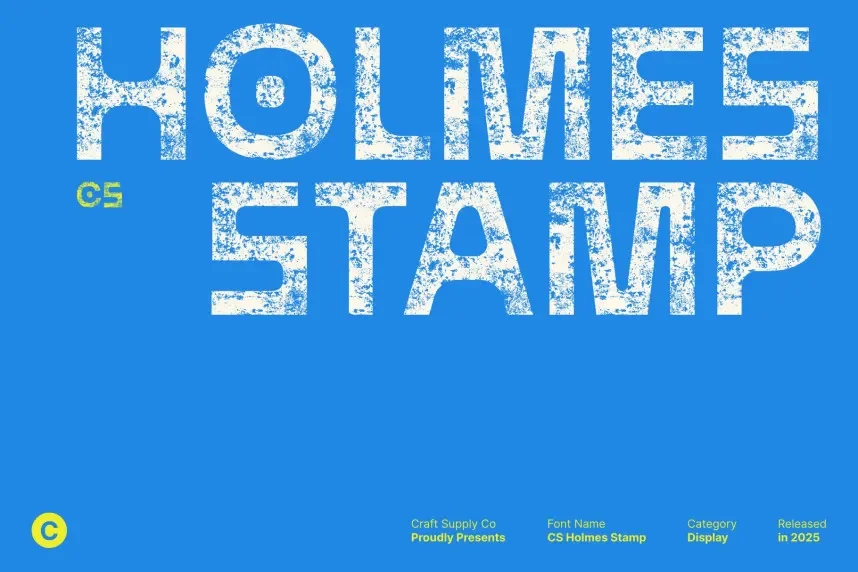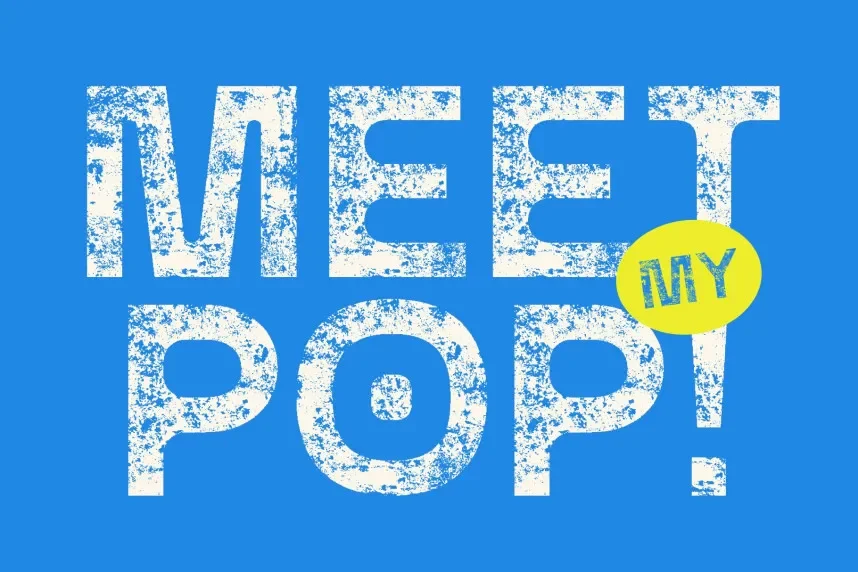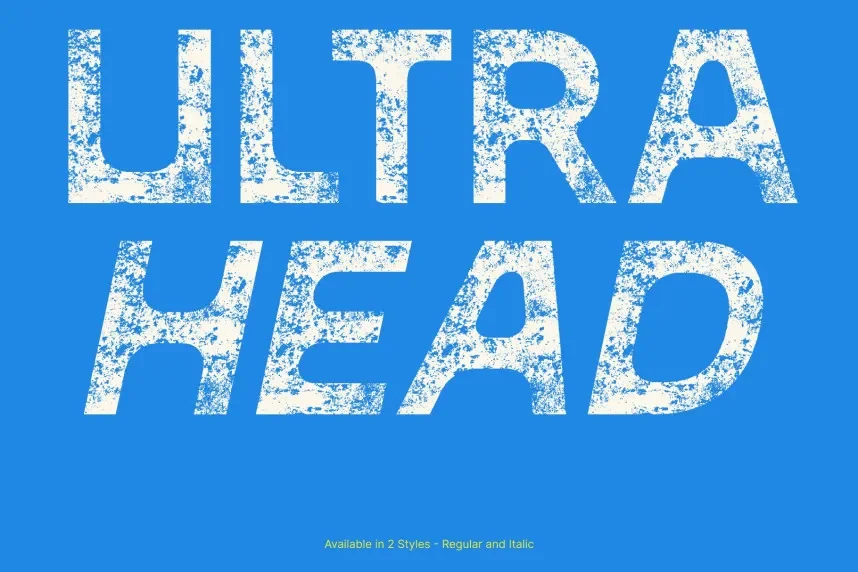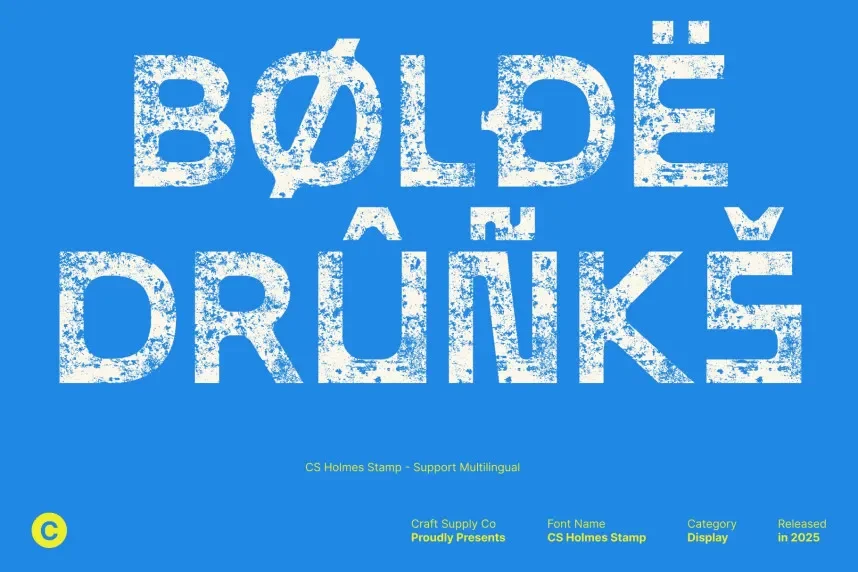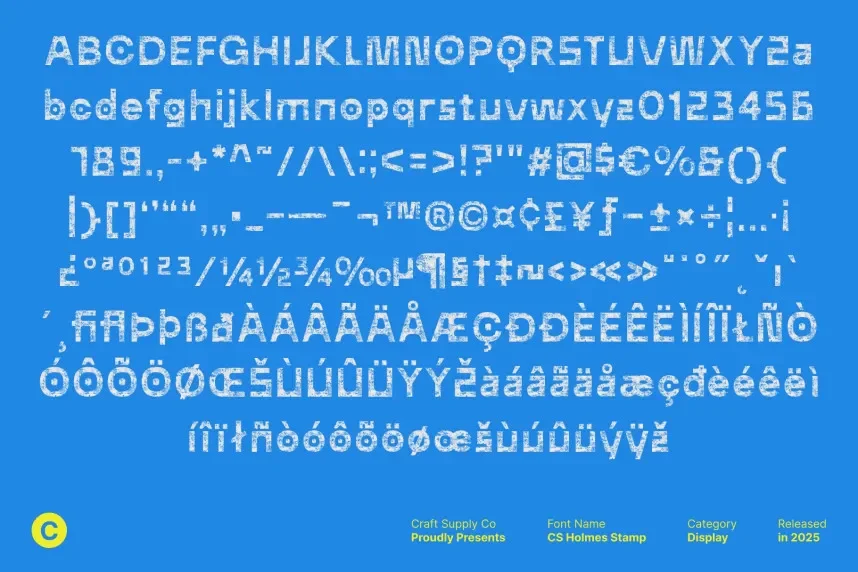
CS Holmes Stamp Font is a display typeface with a bold, stamped look, making it ideal for projects requiring a strong, vintage appeal. Its irregular edges and strong contrast between thick and thin strokes give it a hand-crafted, authentic feel. This font is perfect for branding, logo design, and marketing materials that need to make an impact.
The font works well for posters, event flyers, and retro-inspired packaging. Pair it with simple sans-serif fonts for body text to enhance readability while maintaining the boldness of the header. CS Holmes Stamp Font is available in TTF and OTF formats, with a commercial-use license. Be sure to verify the license before using it commercially.